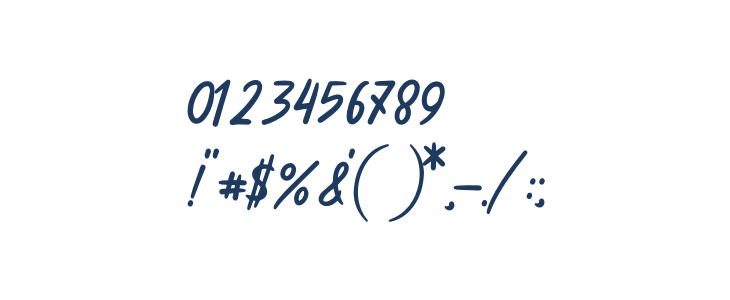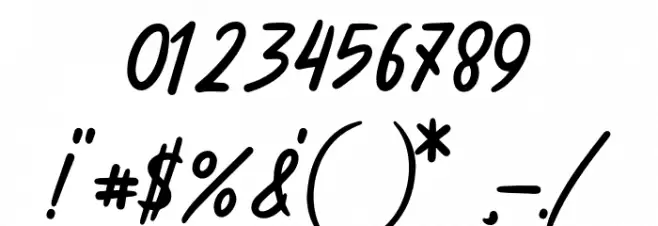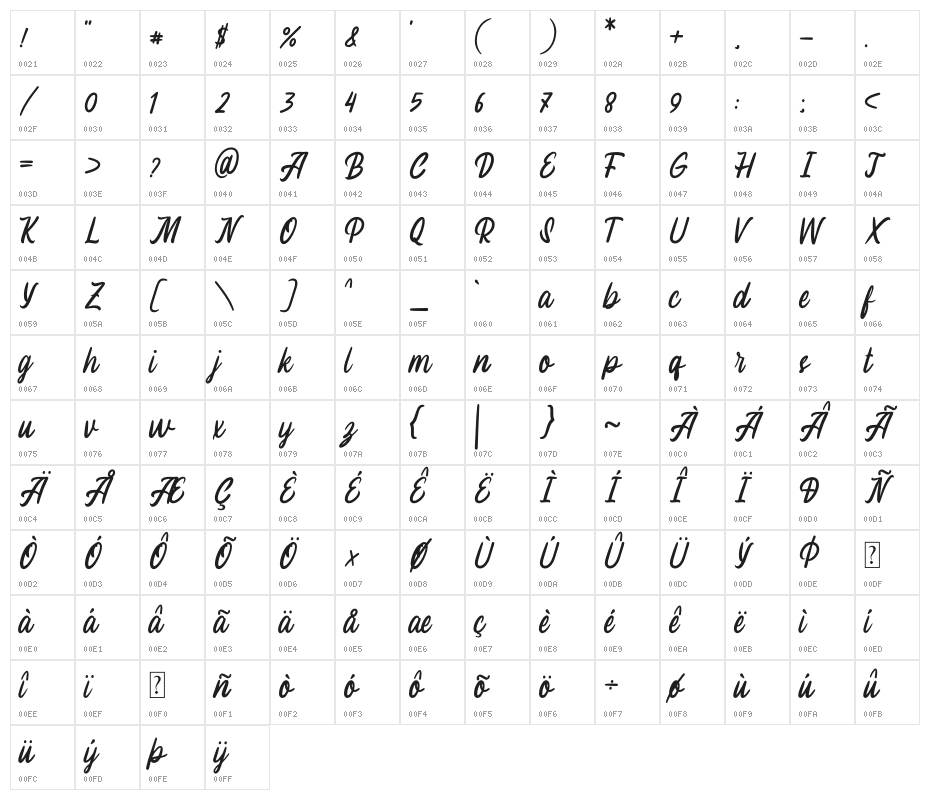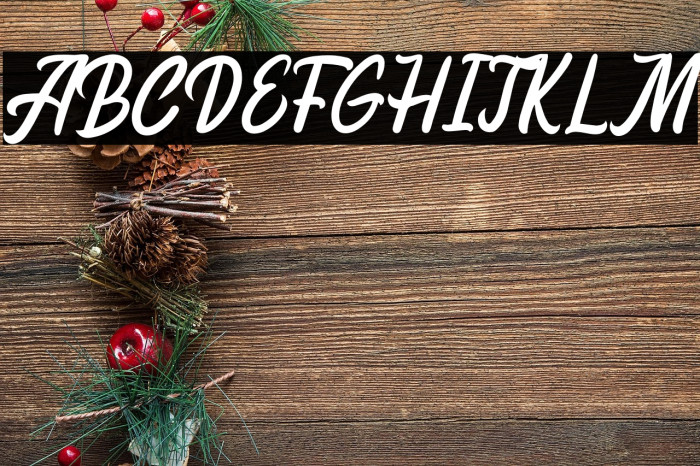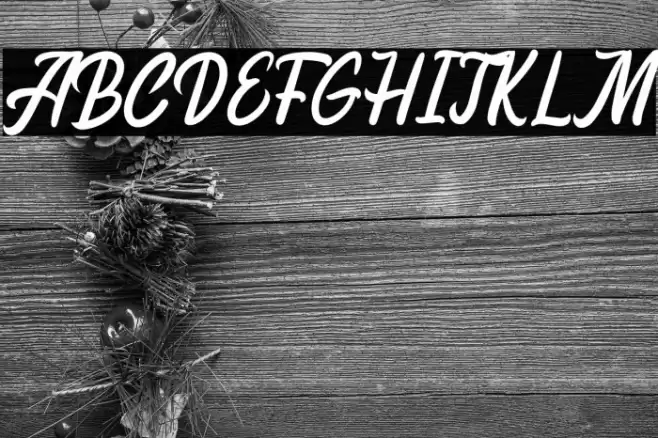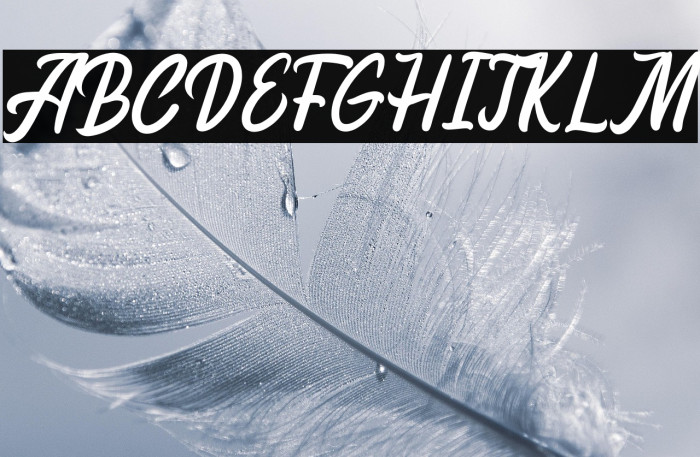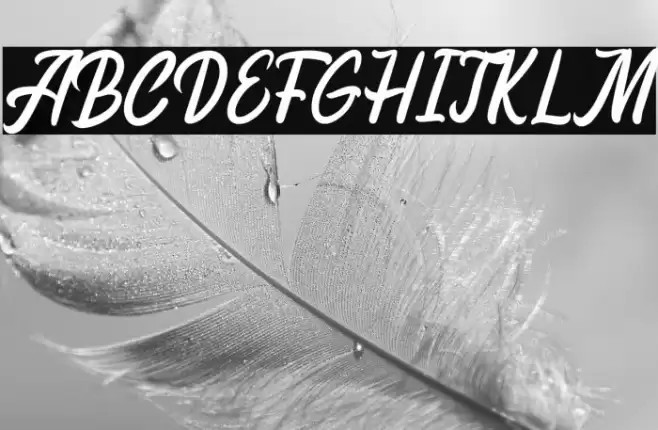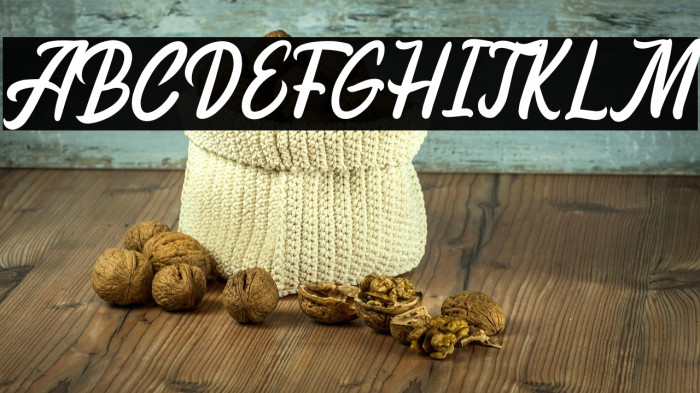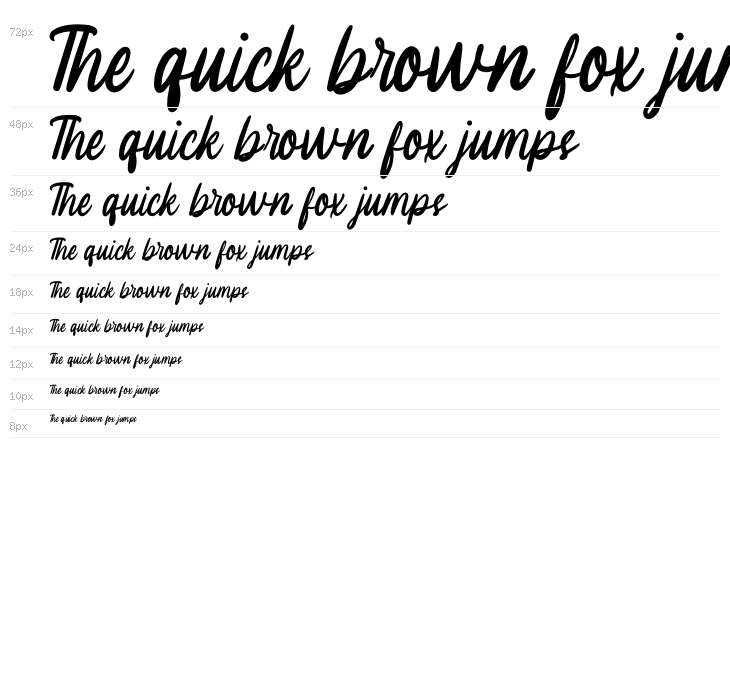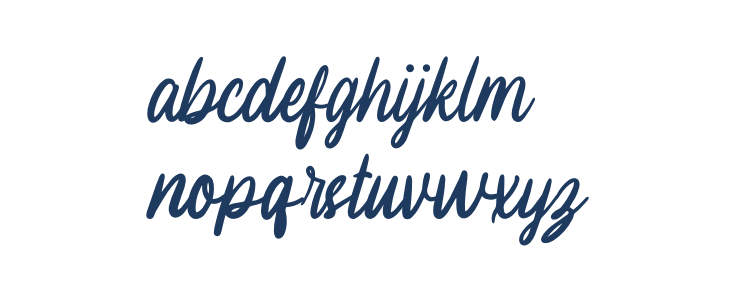
Melissa Font
Melissa Description
This font features a flowing, cursive style that exudes elegance and sophistication. The letters are interconnected, creating a seamless and fluid appearance. The uppercase letters are bold and prominent, while the lowercase letters maintain a consistent and harmonious flow. The numerals are clear and well-defined, matching the overall cursive theme. Special characters are integrated smoothly, maintaining the font's cohesive look. This font is ideal for projects that require a touch of elegance and personal flair, such as invitations, greeting cards, and branding materials.